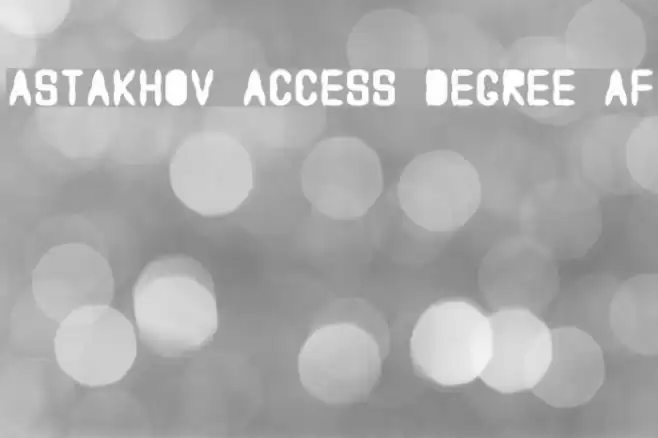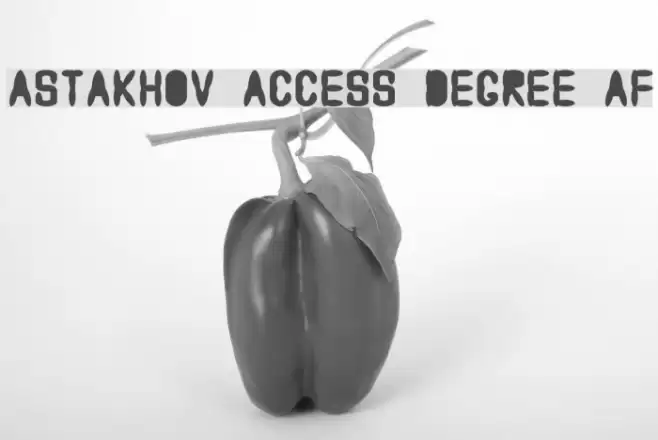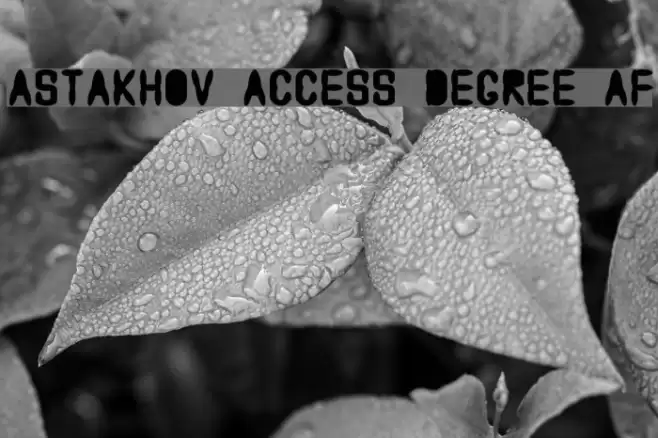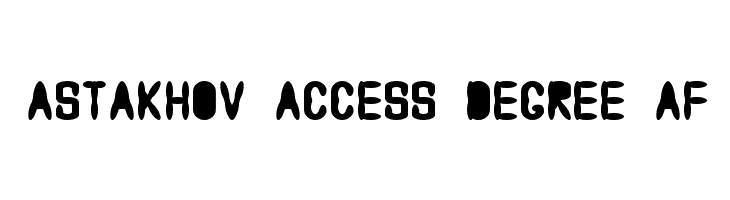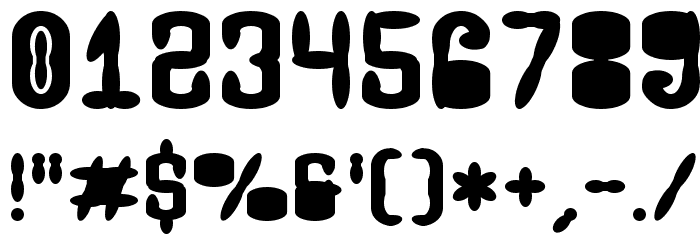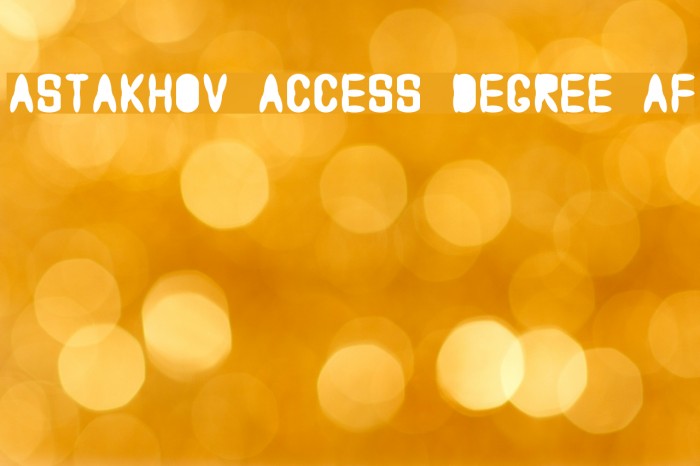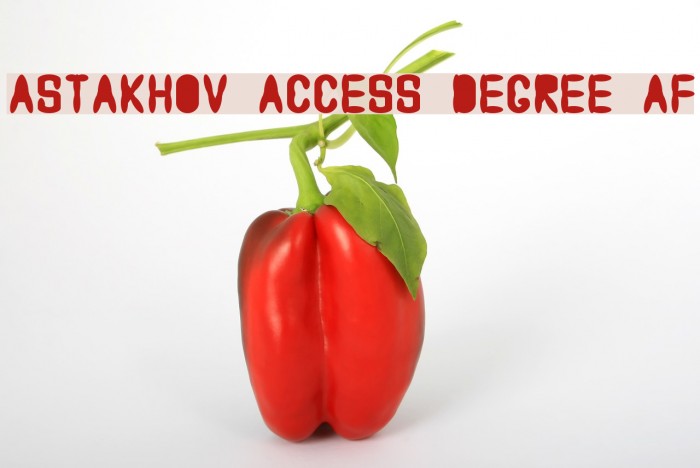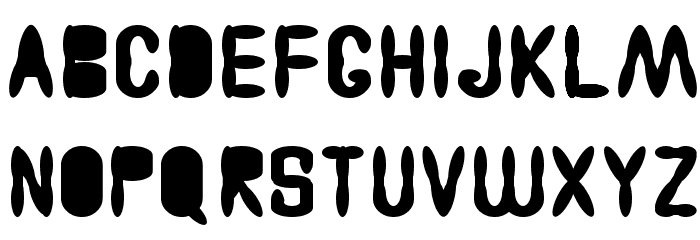
Astakhov Access Degree AF Font
Astakhov Access Degree AF Description
This font features a bold and playful design with a distinctly organic and fluid appearance. The characters are rounded and have a slightly irregular shape, giving them a unique and whimsical look. The uppercase and lowercase letters maintain a consistent style, with a strong emphasis on curves and rounded edges. The numbers and special characters follow the same design principles, ensuring a cohesive overall appearance. This font is ideal for projects that require a fun and engaging visual style, such as children's books, playful branding, or creative advertising campaigns.
A bold, playful font with organic, rounded characters from Uncategorized fonts.
- Font: Astakhov Access Degree AF
- Proposed Projects: Ideal for children's books, playful branding, and creative advertising.
- Overall Style: Playful, Whimsical